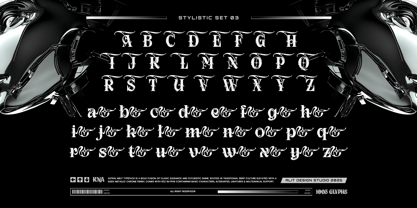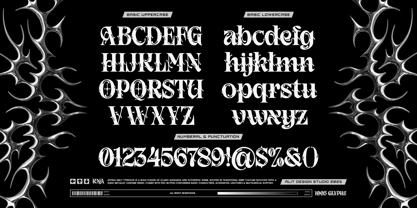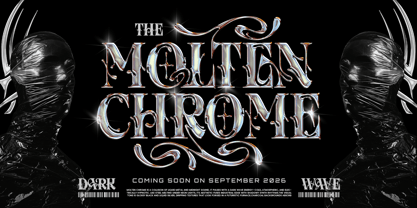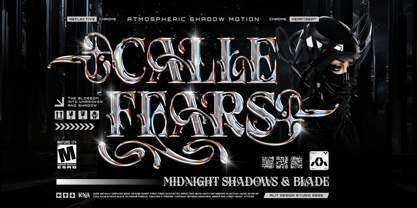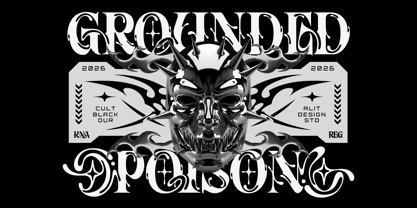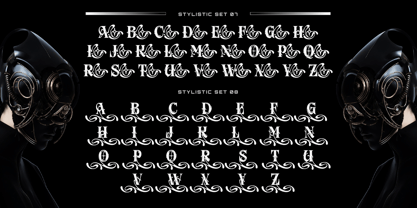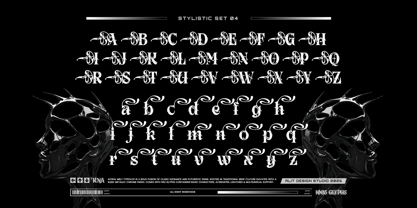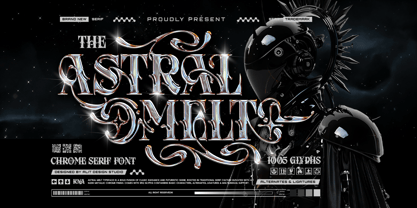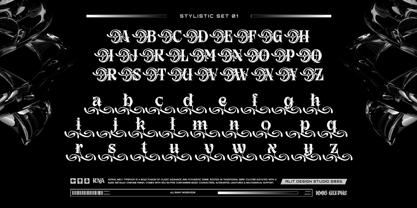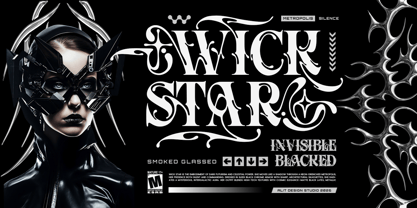
Astral Melted
by Alit Design
Astral Melt: The Futuristic Liquid Chrome Serif Step into the future of typography with Astral Melt, a bold typeface that brilliantly fuses classic typographic elegance with a cutting-edge, sci-fi shine. Rooted in traditional serif and gothic blackletter culture, Astral Melt is elevated by a sleek, molten aesthetic that feels like flowing liquid metal. Designed by Alit Design Studio, this font doesn't just spell out words; it creates otherworldly visual experiences. The flowing curves, sharp spikes, and chrome-like fluidity make it the ultimate choice for designers looking to push boundaries and embrace the dark cyber, Y2K, and futuristic aesthetics. Unmatched Creative Control Astral Melt is an absolute powerhouse of a font. Packed with 1,005 glyphs, it offers unparalleled customization. Whether you want to keep it sleek and legible or go full-blown experimental, the massive library of alternates allows you to craft typography that looks entirely bespoke. Massive Character Set: Includes an incredible 1,005 glyphs, giving you an endless playground of design possibilities. 9 Stylistic Sets: Transform your text instantly with Stylistic Sets 01 through 09. Featuring intricate, flowing swashes, alien-like terminals, and dramatic flourishes. Extensive Ligatures: A huge library of custom uppercase ligatures that interlock perfectly for seamless, custom-looking logos and bold headlines. Complete Basics: Standard uppercase, lowercase, numerals, and punctuation. Multilingual Support: Broad language support to ensure your message translates globally. PUA Encoded Characters: Fully accessible without additional design software. Perfect For: Apparel & Streetwear: Edgy t-shirt graphics and bold brand identities. Music & Entertainment: Album covers, DJ logos, and music festival posters (especially techno, metal, or synthwave). Gaming & Sci-Fi: Video game titles, futuristic UI elements, and cyberpunk-themed projects. Editorial & Branding: High-impact magazine layouts, Y2K-inspired packaging, and metallic 3D typography posters. Elevate your designs with a typeface that is as aggressive as it is elegant. Get Astral Melt today and start creating the future.
Designers: Alit Suarnegara
Foundry: Alit Design